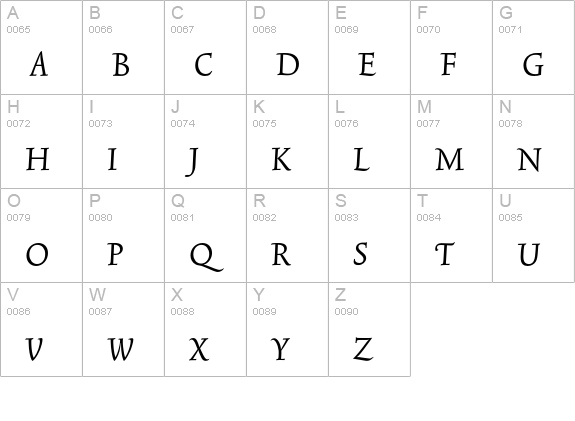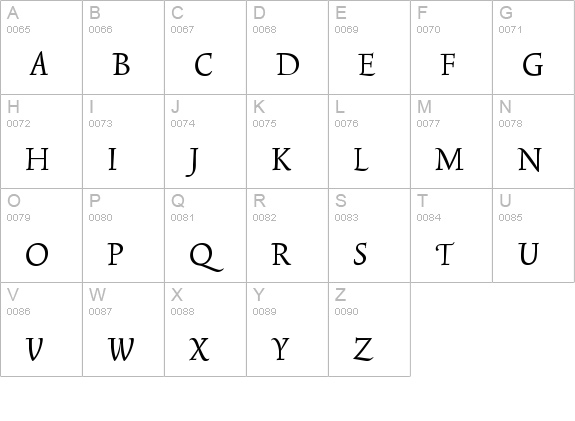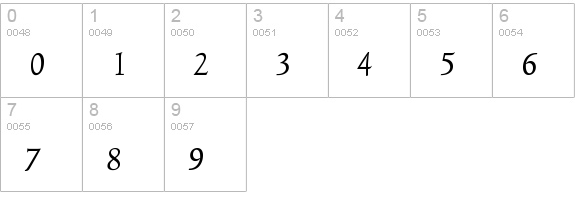
TriniteNo1-ItalicTab is a sleek and sophisticated font that exudes elegance and modernity. With its unique italicized style, it adds a touch of sophistication to any design project. This font is perfect for those looking to make a statement with their typography. What sets TriniteNo1-ItalicTab apart is not just its stunning aesthetics but also the fact that it is available for free. That's right, you can freely download this font at FontsMarket.com, making it accessible to designers and creatives of all backgrounds. Whether you're working on a branding project, a website design, or even a personal invitation, TriniteNo1-ItalicTab will elevate your work to new heights. Its clean lines and graceful curves offer a refined and polished look that is sure to impress. With its versatile nature, TriniteNo1-ItalicTab can be used in a variety of applications. From headlines to body text, this font is capable of bringing a touch of class to any project. Its legibility is unparalleled, ensuring that your message will be effortlessly conveyed to your audience. So why wait? Enhance your design work with TriniteNo1-ItalicTab and experience the power of free, high-quality typography. Download it today at FontsMarket.com and unlock a world of possibilities for your creative endeavors.